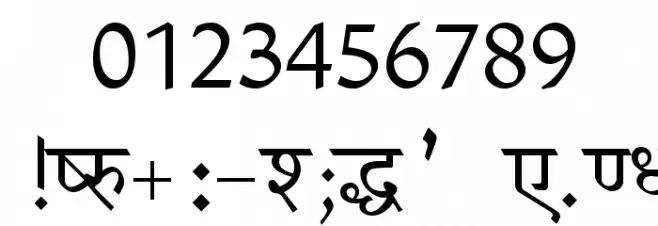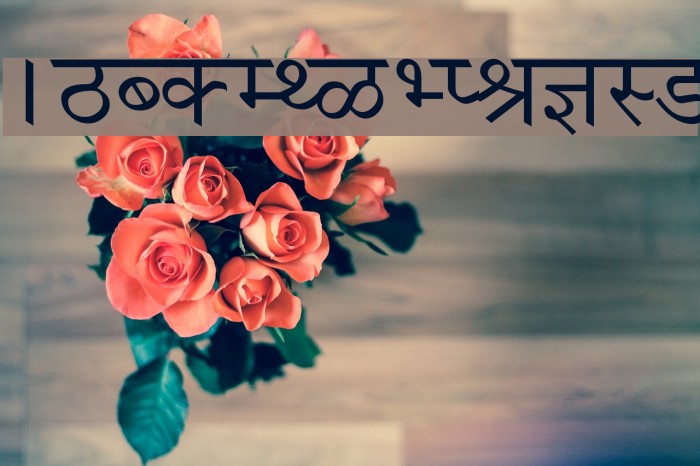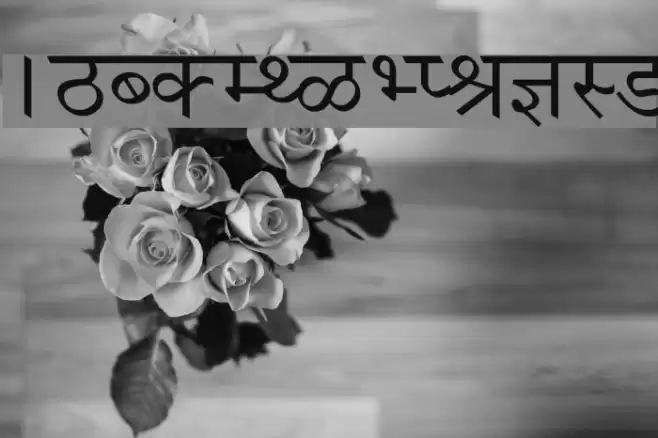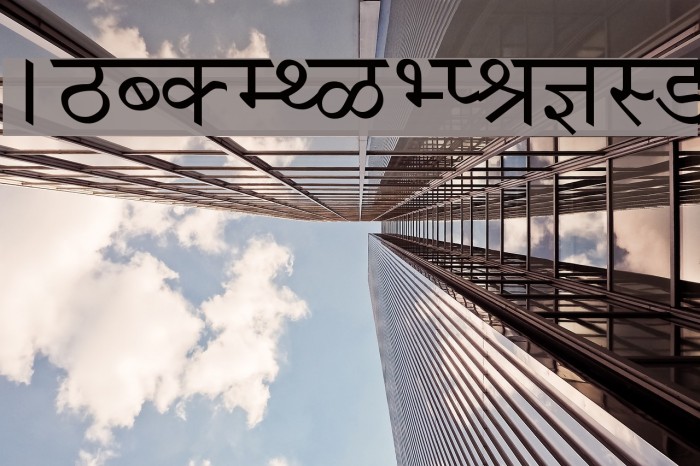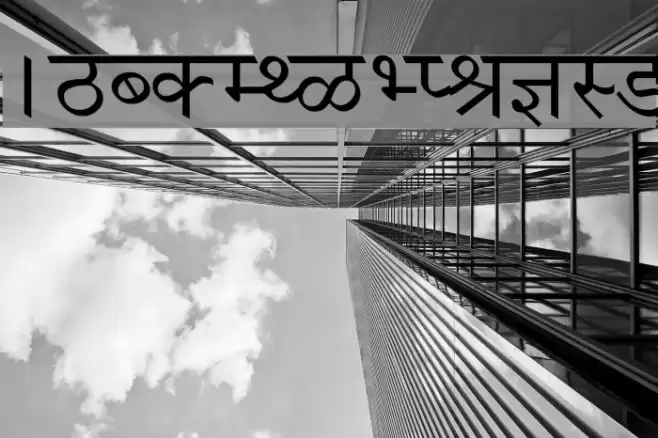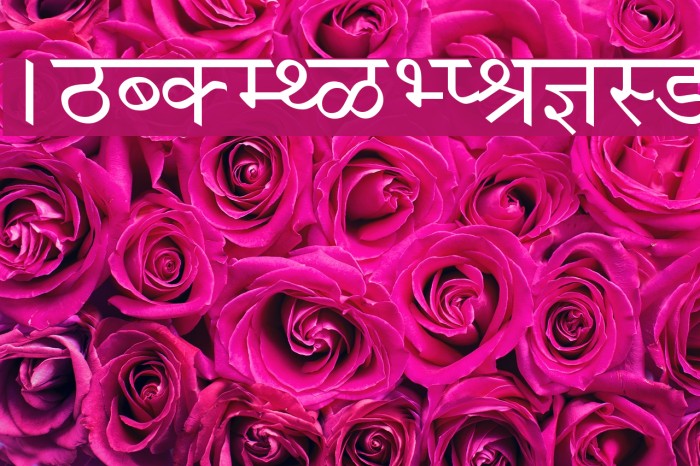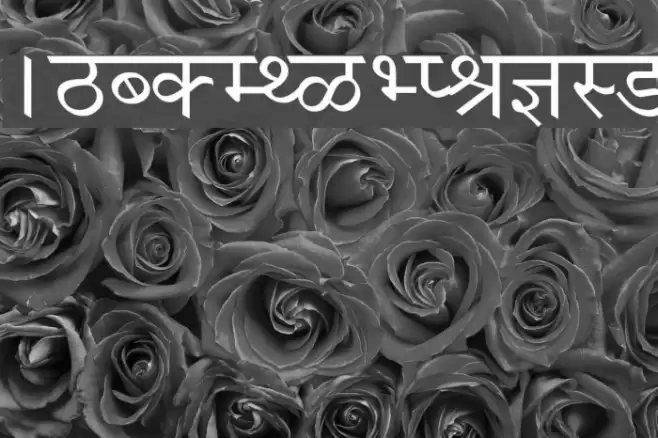
Krishna Normal Font
This font features a traditional Devanagari script style, characterized by its elegant and flowing lines. The characters are well-defined with a moderate stroke contrast, giving it a balanced and readable appearance. The script maintains a classic look, with intricate curves and a harmonious structure that is typical of traditional Indian calligraphy. The numerals are clear and distinct, matching the overall aesthetic of the script. Special characters are included, maintaining the same stylistic elements as the letters and numbers. The font is suitable for conveying a sense of cultural heritage and authenticity.
| Overall Style | Classic |
| Use Case | Headlines, Body text, Cultural projects |
| Proposed Projects | Ideal for cultural publications, educational materials, traditional event invitations, and artistic projects that require a touch of Indian heritage. |